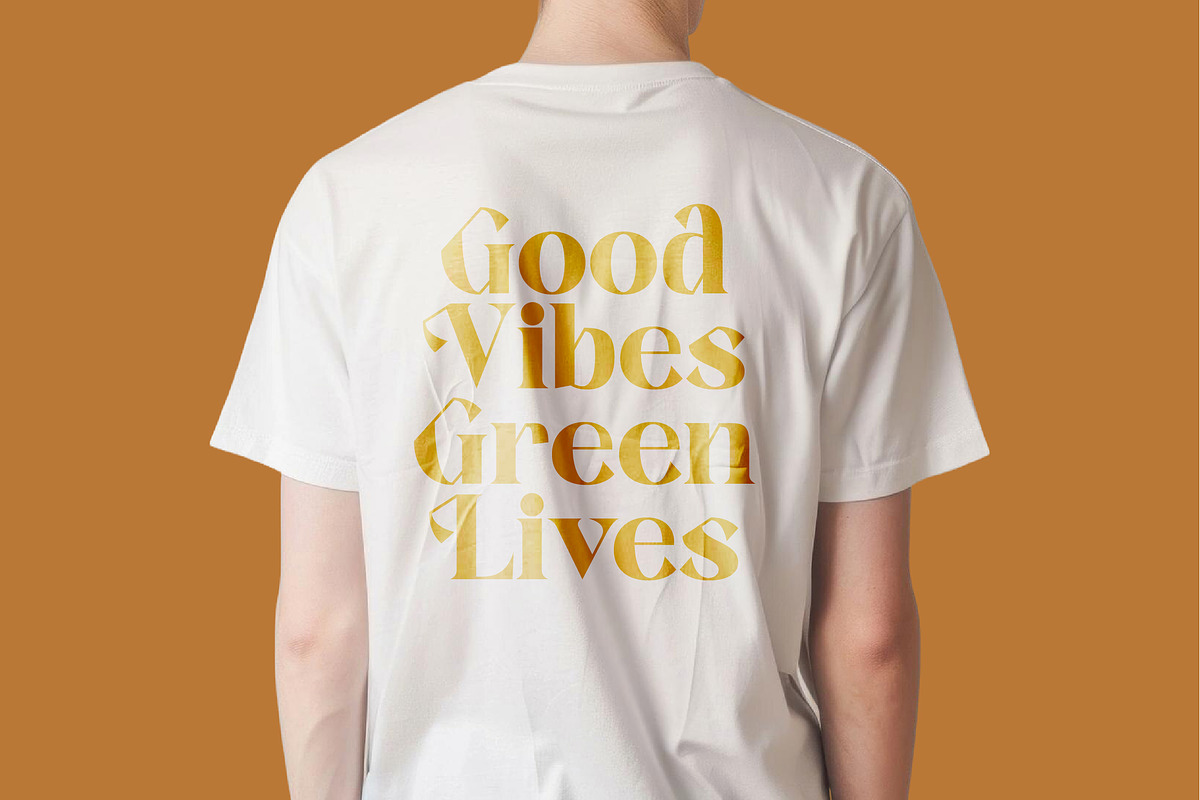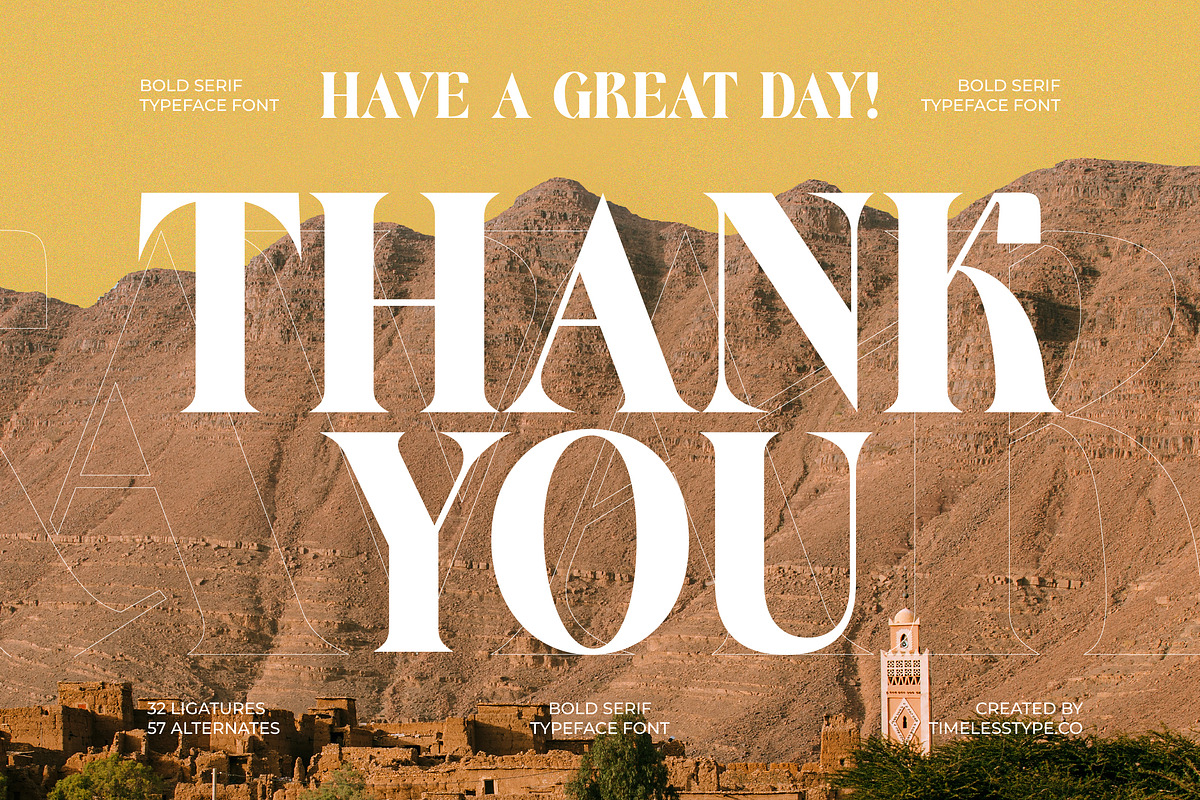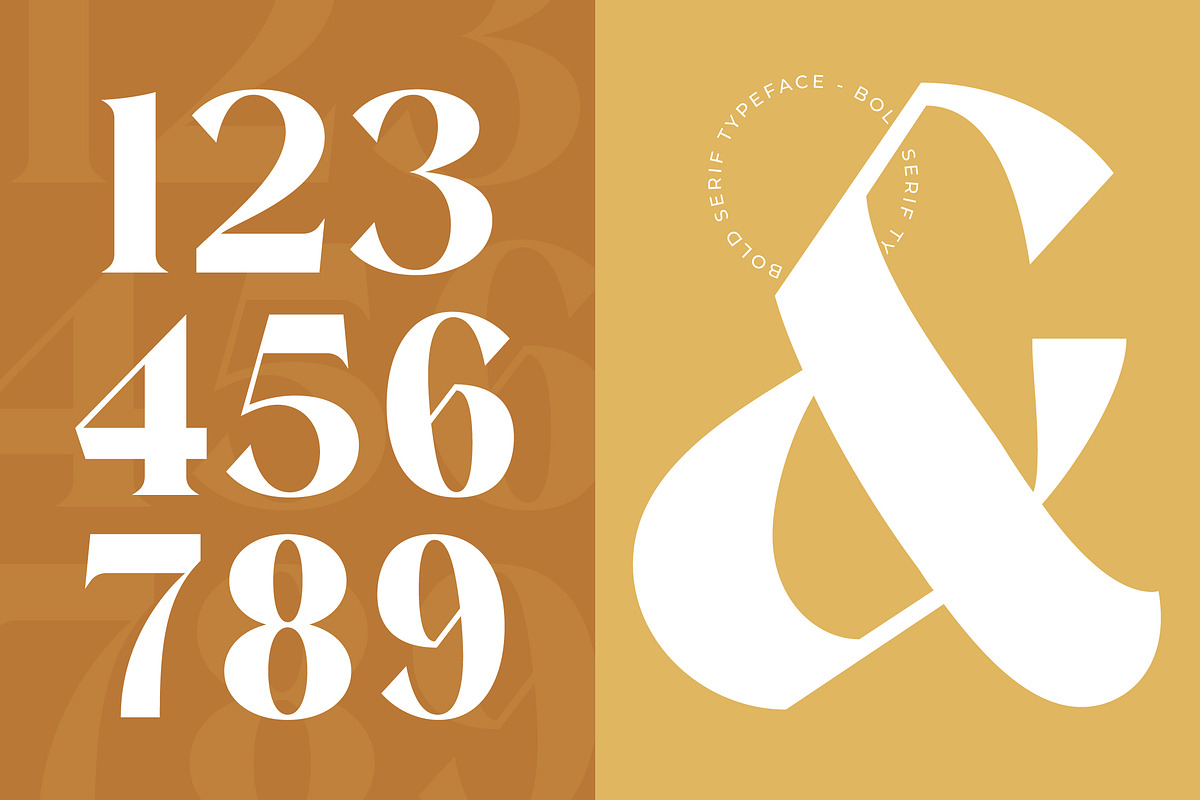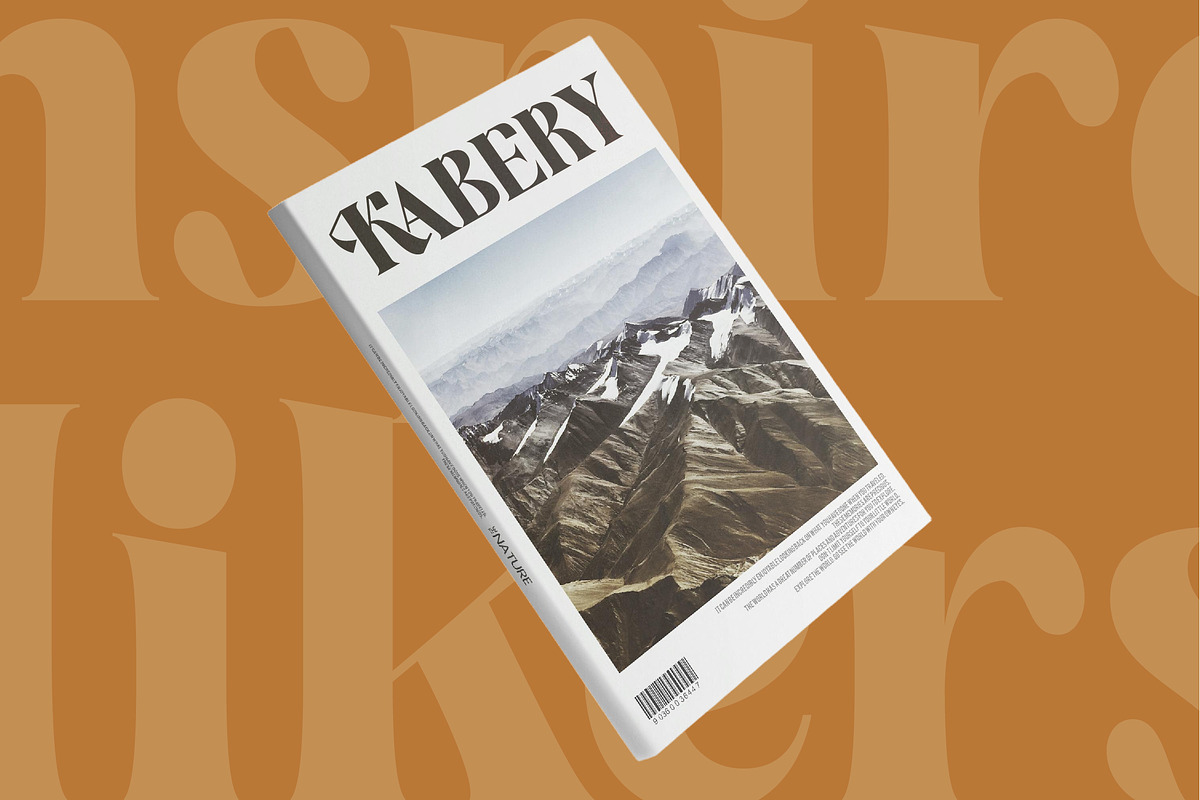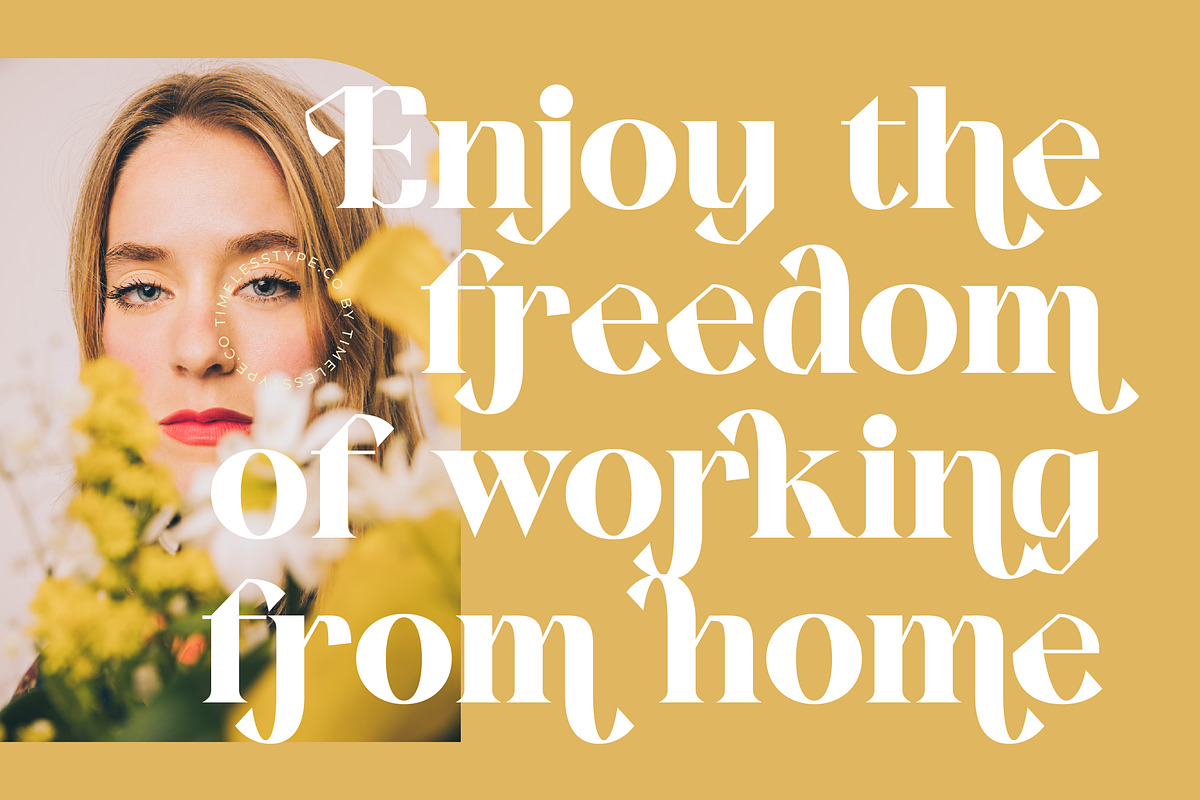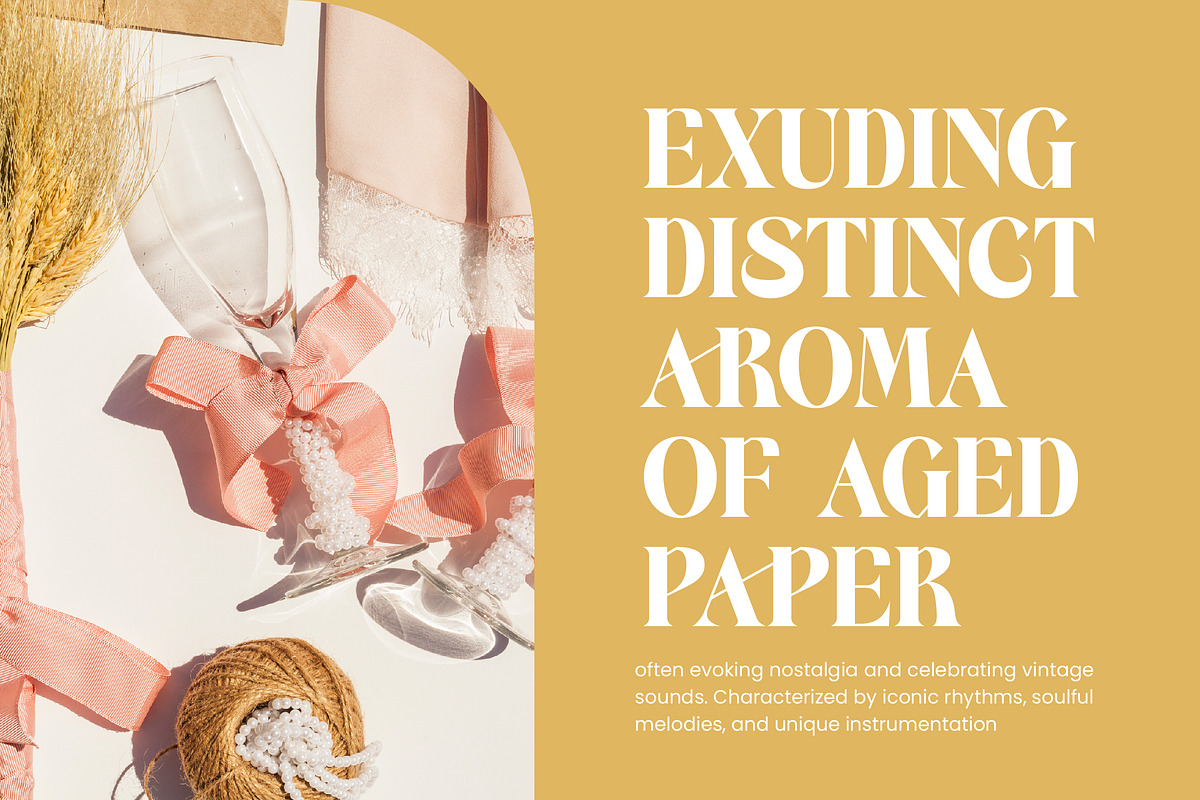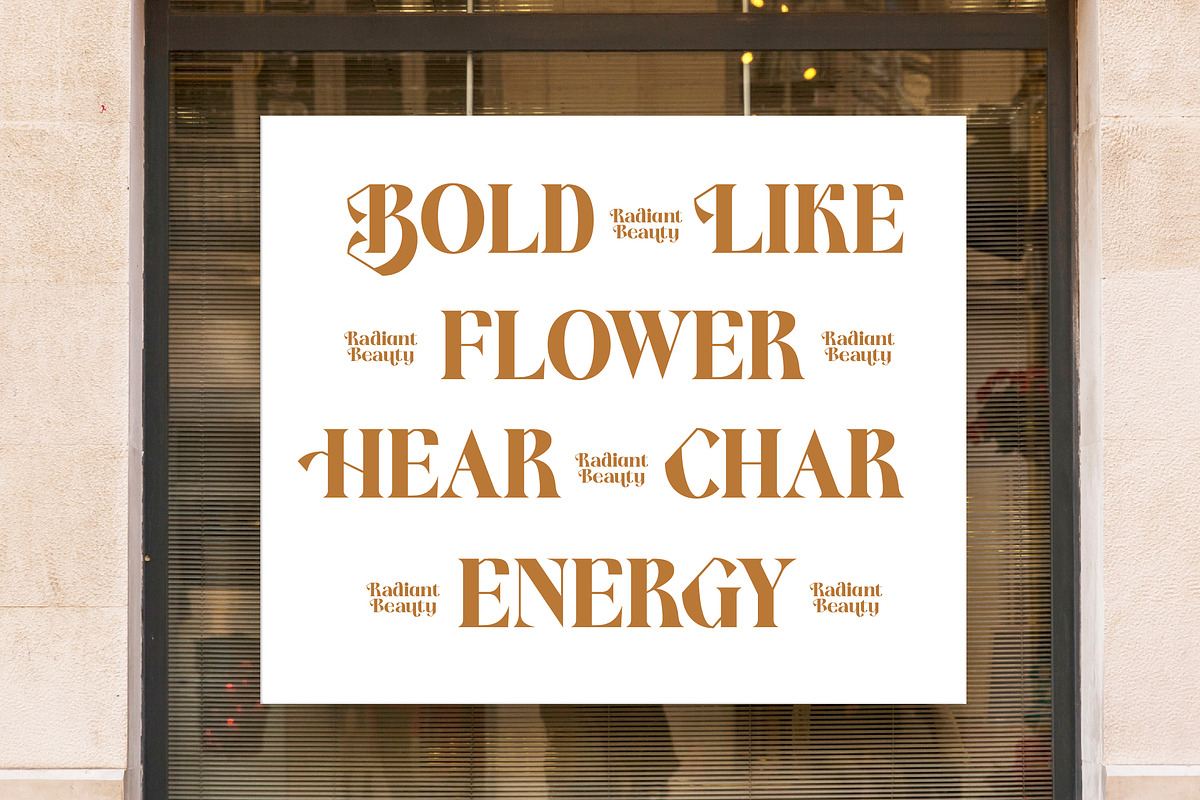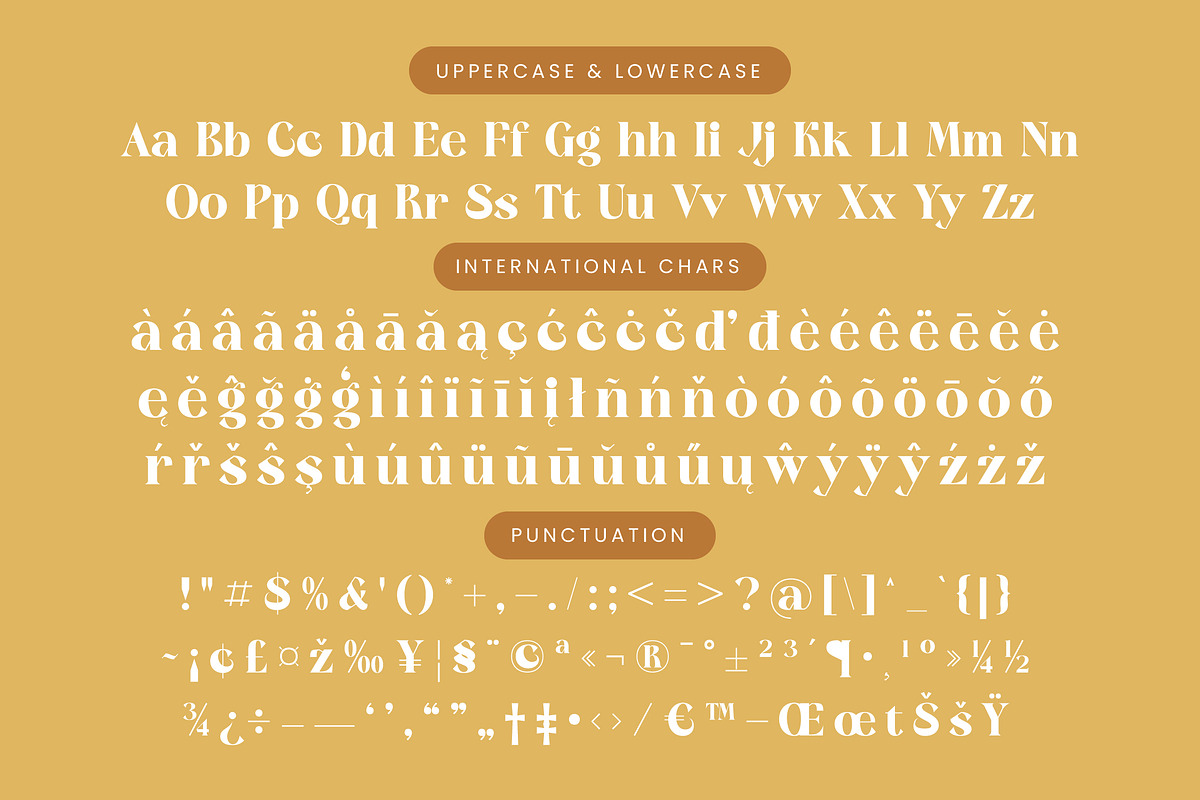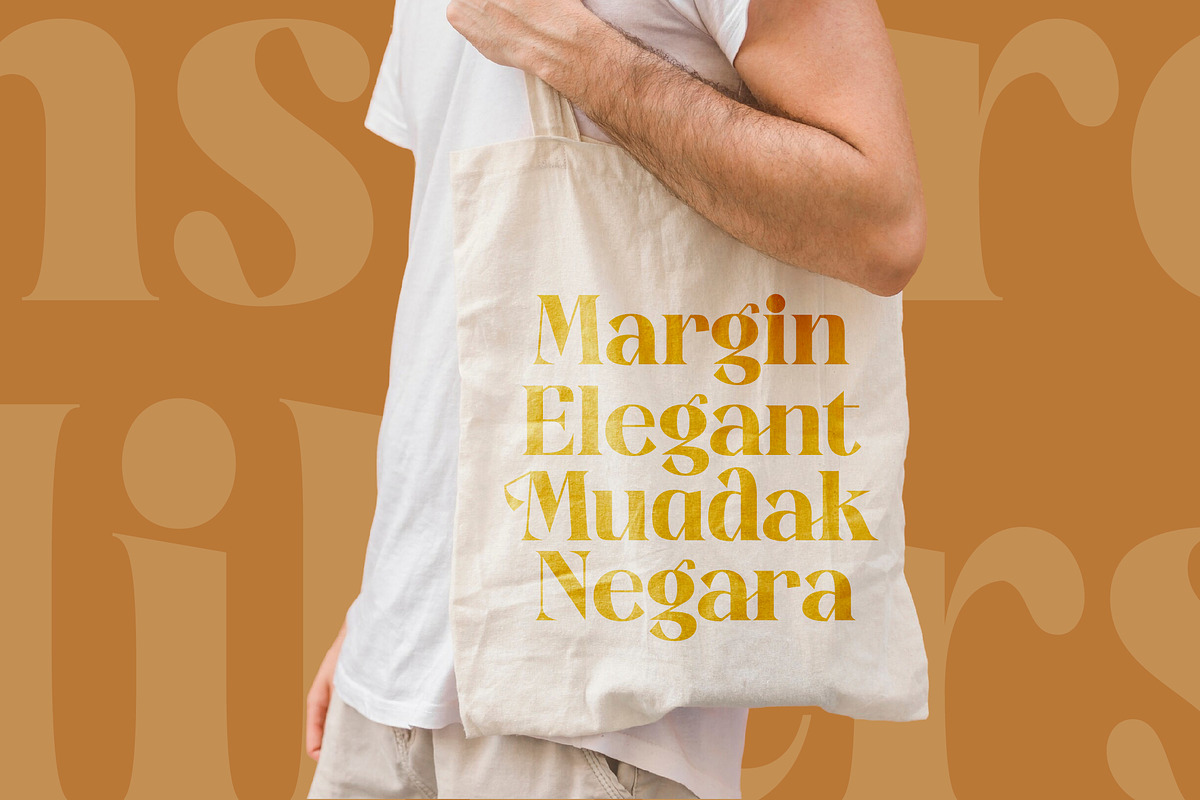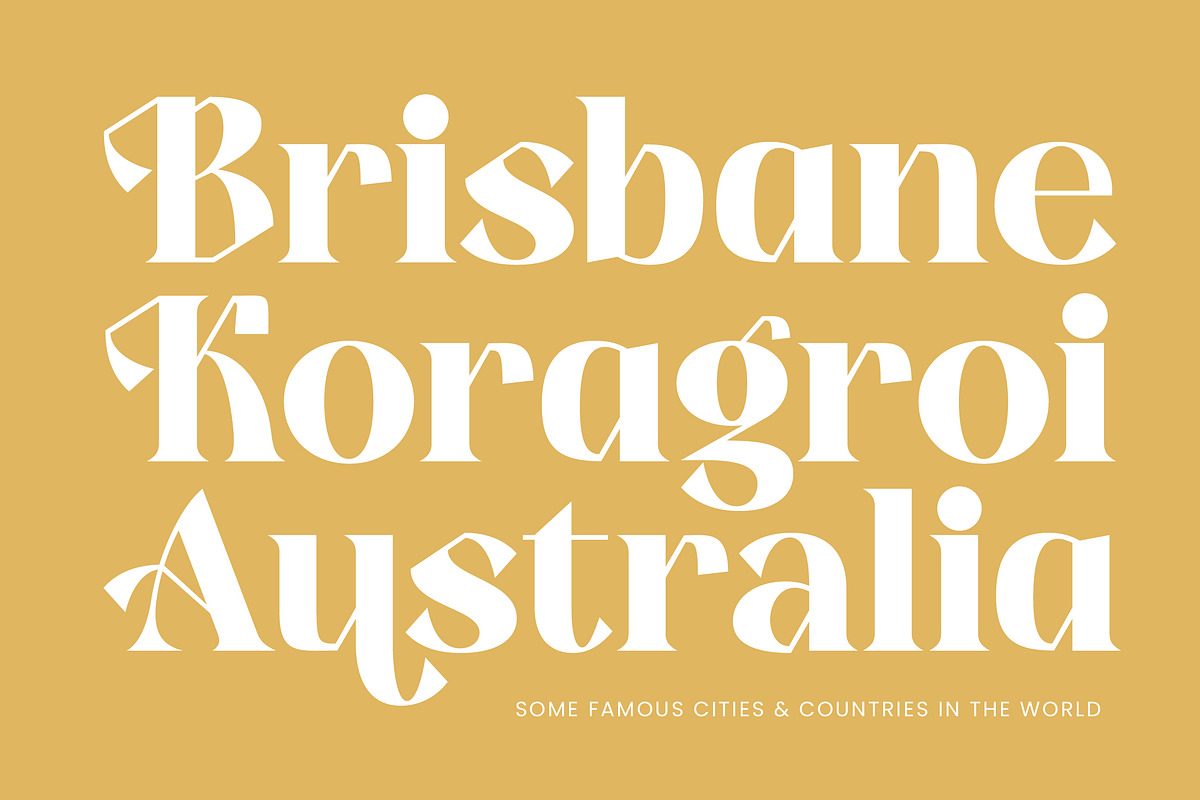
Kavare Bold Modern Serif Font
Introducing Kavare, a striking bold serif typeface that redefines elegance with its powerful presence and intricate detailing. This font is designed to command attention and elevate every project with a touch of sophisticated drama.
Inspired by the raw beauty of arid landscapes and architectural symmetry, Kavare blends traditional serif foundations with avant-garde flourishes. The visual atmosphere evokes a sense of timeless luxury found in high-end travel and boutique editorial spreads.
This modern serif display font delivers a massive branding impact through its high-contrast serif design. It is the quintessential luxury typography choice for designers seeking a unique editorial font that balances weight and grace effortlessly.
Perfectly aligned with the current modern serif trend, Kavare sits at the forefront of character-driven typography. It meets the rising demand for editorial display fonts that offer both nostalgia and a contemporary edge for high-profile visual identities.
Ideally suited for high-end logo design and comprehensive branding systems, this typeface excels in fashion magazines and premium packaging. Its versatile nature also makes it a beautiful choice for wedding stationery and luxury editorial layouts.
The typeface is packed with creative potential, featuring 32 unique ligatures, 57 stylistic alternates, and custom swashes to customize your text. With full support for international characters and multilingual glyphs, it is ready for global design challenges.